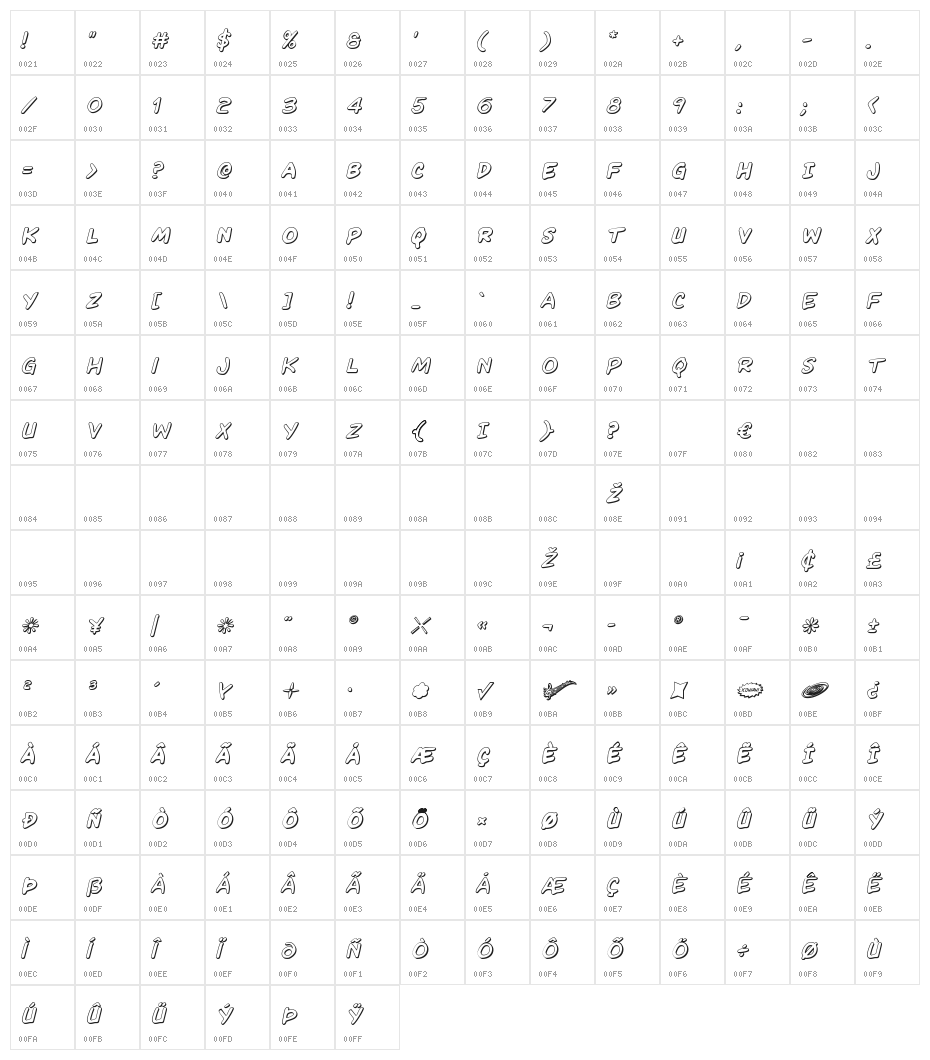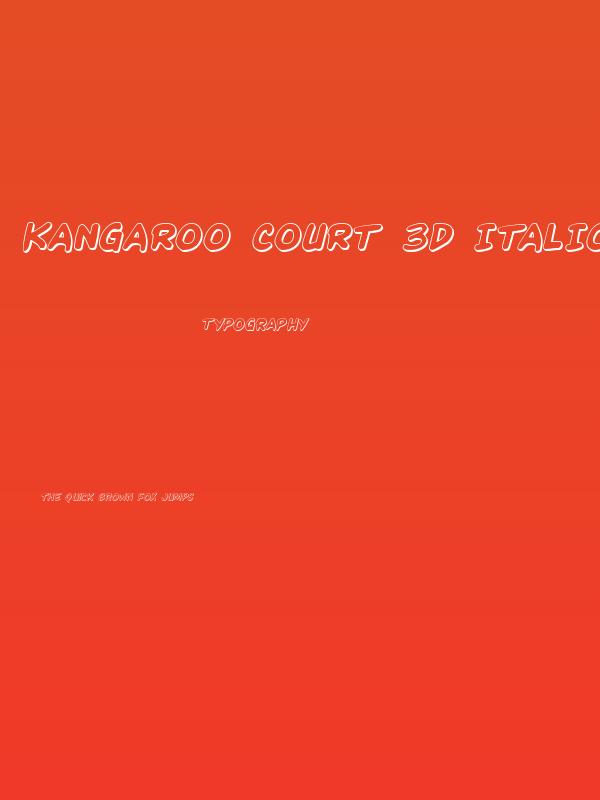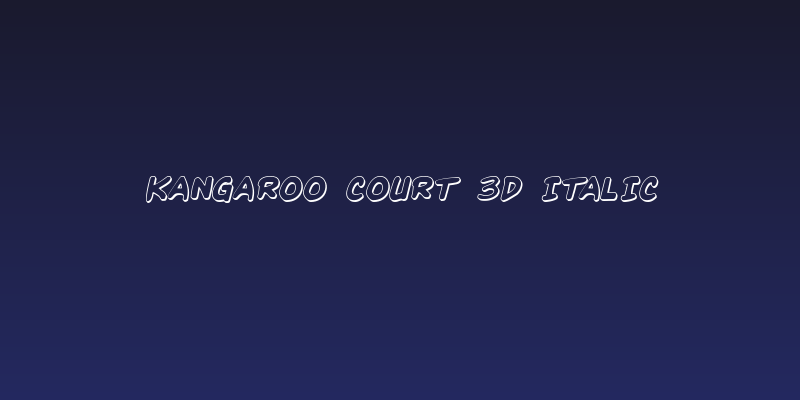
Kangaroo Court 3D Italic Font
Kangaroo Court 3D Italic Description
This font features a playful and bold 3D effect, with each character outlined to create a sense of depth. The letters are italicized, adding a dynamic and energetic feel. The style is reminiscent of comic book lettering, with rounded edges and a slightly informal appearance. The uppercase and lowercase letters maintain consistent proportions, ensuring readability. The numbers and special characters are designed to match the overall aesthetic, making them suitable for various creative projects.
| Overall Style | Playful, Comic |
| Proposed Projects | Ideal for comic books, children's books, playful branding, and eye-catching headlines. |